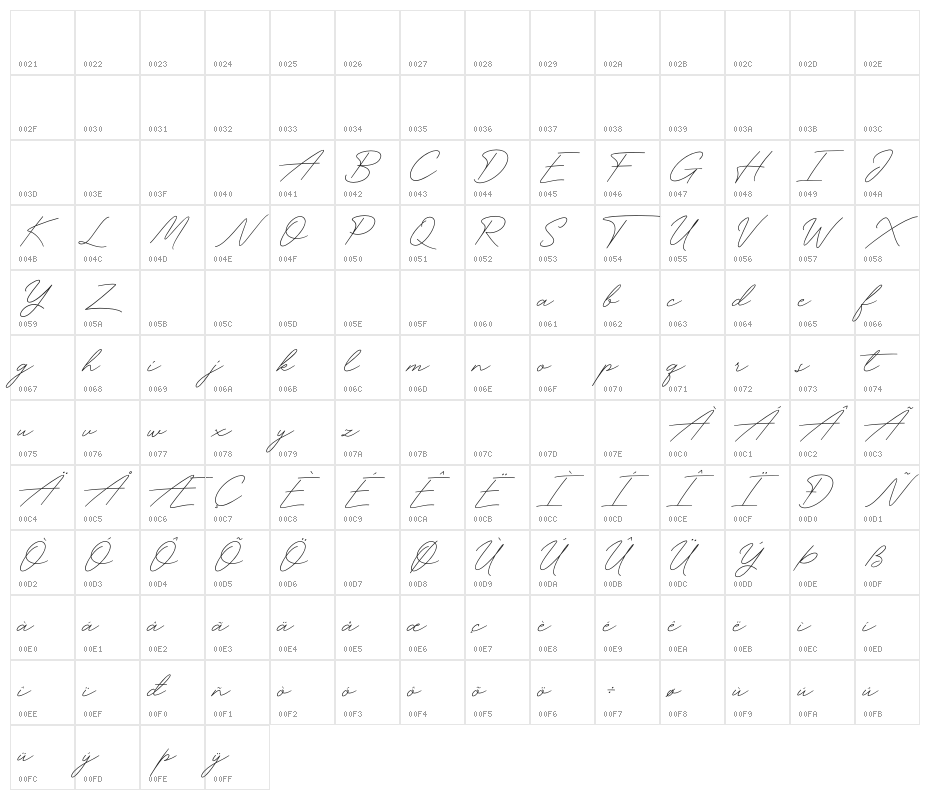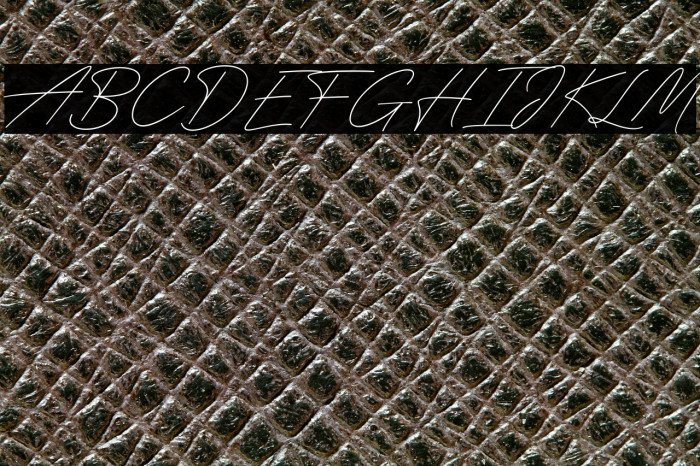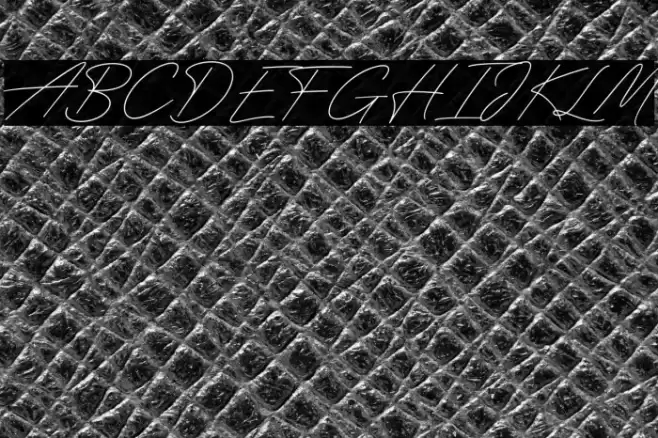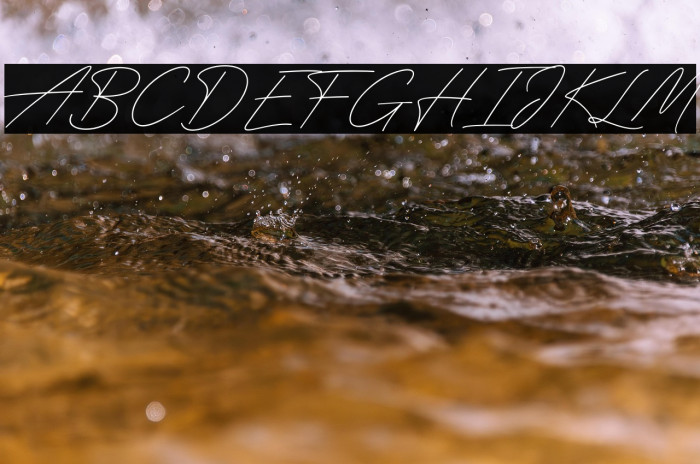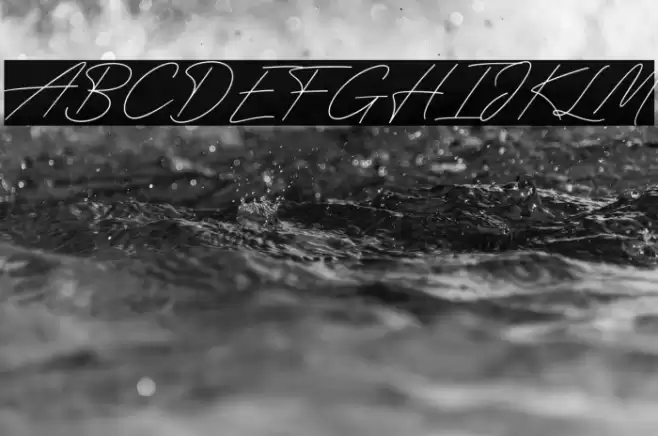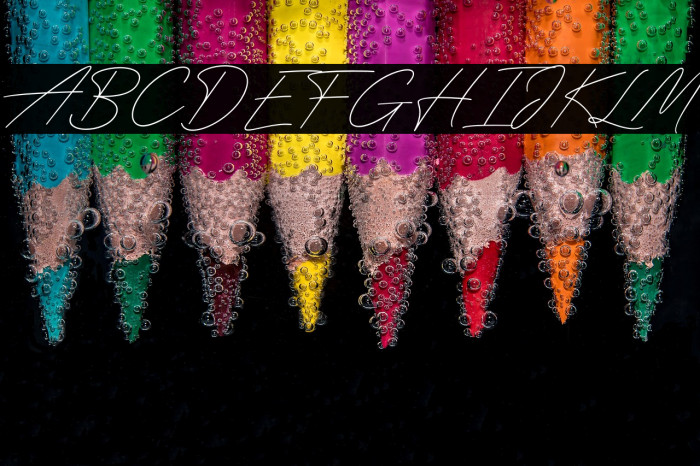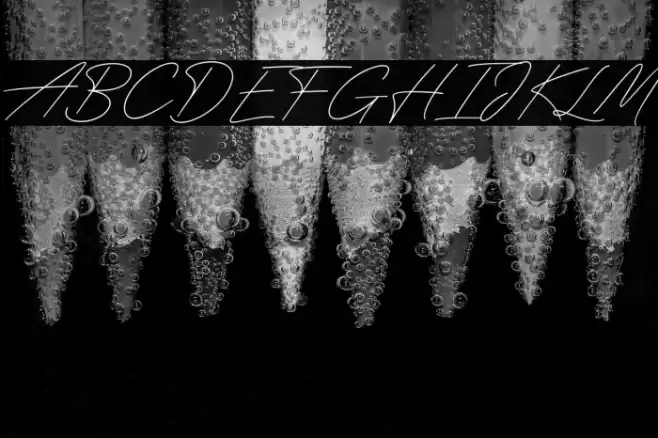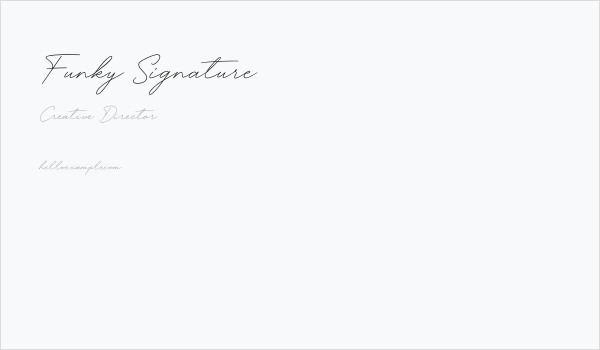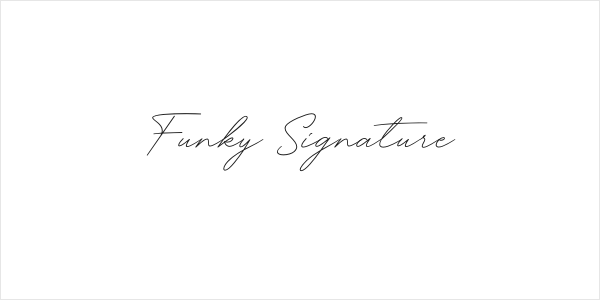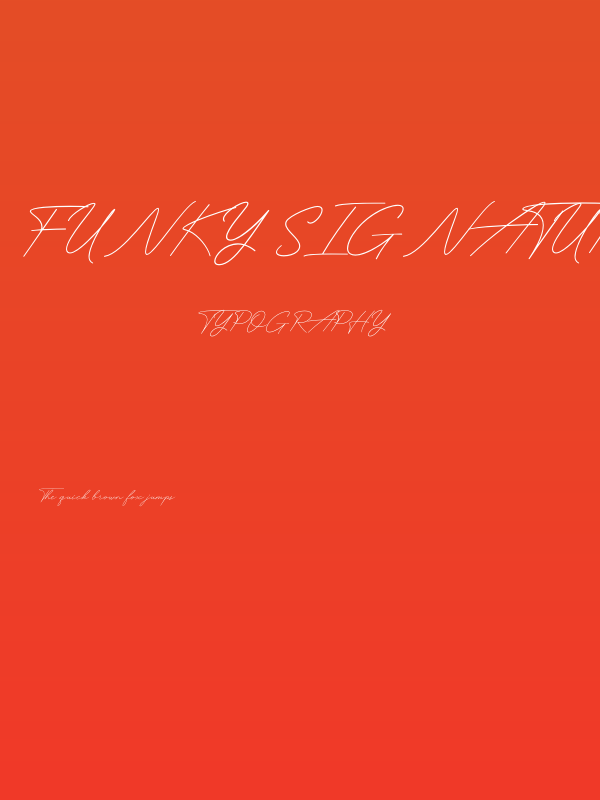
Funky Signature Font
Funky Signature Description
This font exudes a stylish and elegant handwritten script style, characterized by its flowing and connected letterforms. The uppercase letters maintain a sophisticated flair with elongated strokes and subtle curves, while the lowercase letters exhibit a more relaxed and fluid appearance. The overall design is reminiscent of a personal signature, giving it a unique and personal touch. The thin lines and smooth transitions between characters enhance its graceful aesthetic, making it suitable for projects that require a touch of elegance and individuality.
| Use Case | Logos, Invitations, Personal branding |
| Proposed Projects | Ideal for wedding invitations, personal branding, logos, and elegant stationery. |